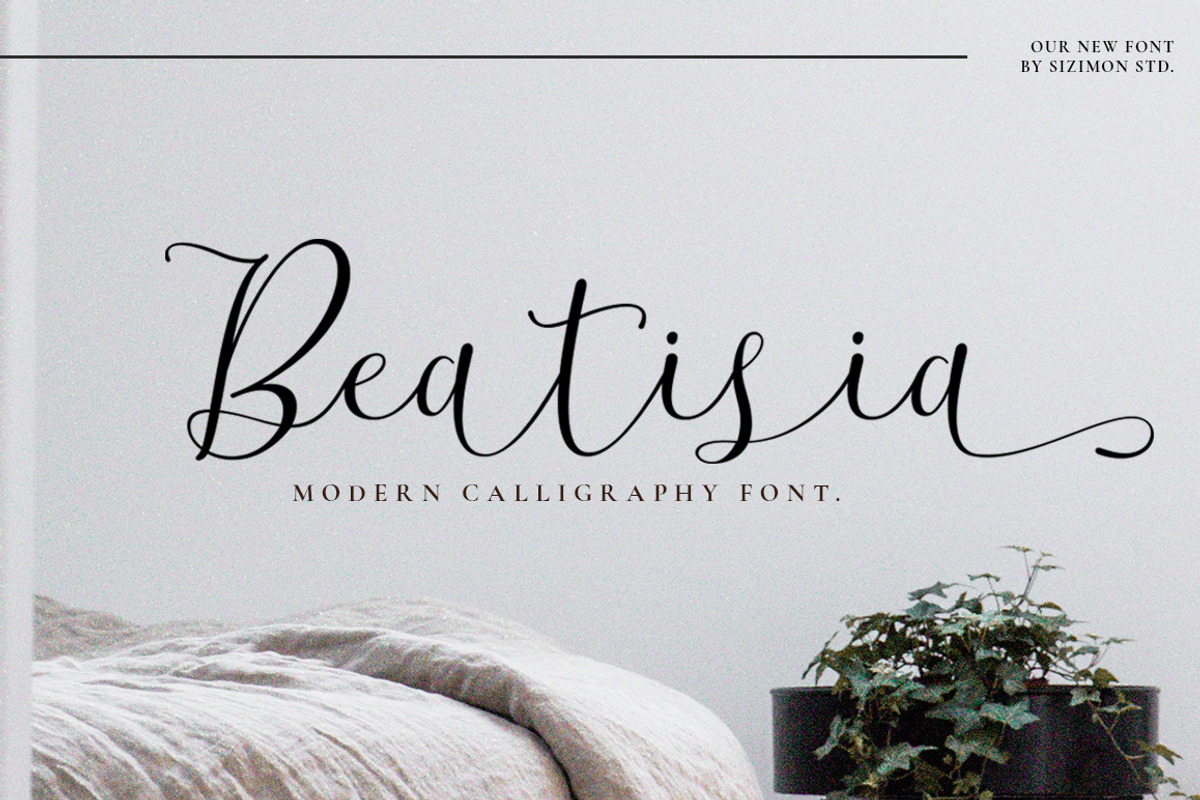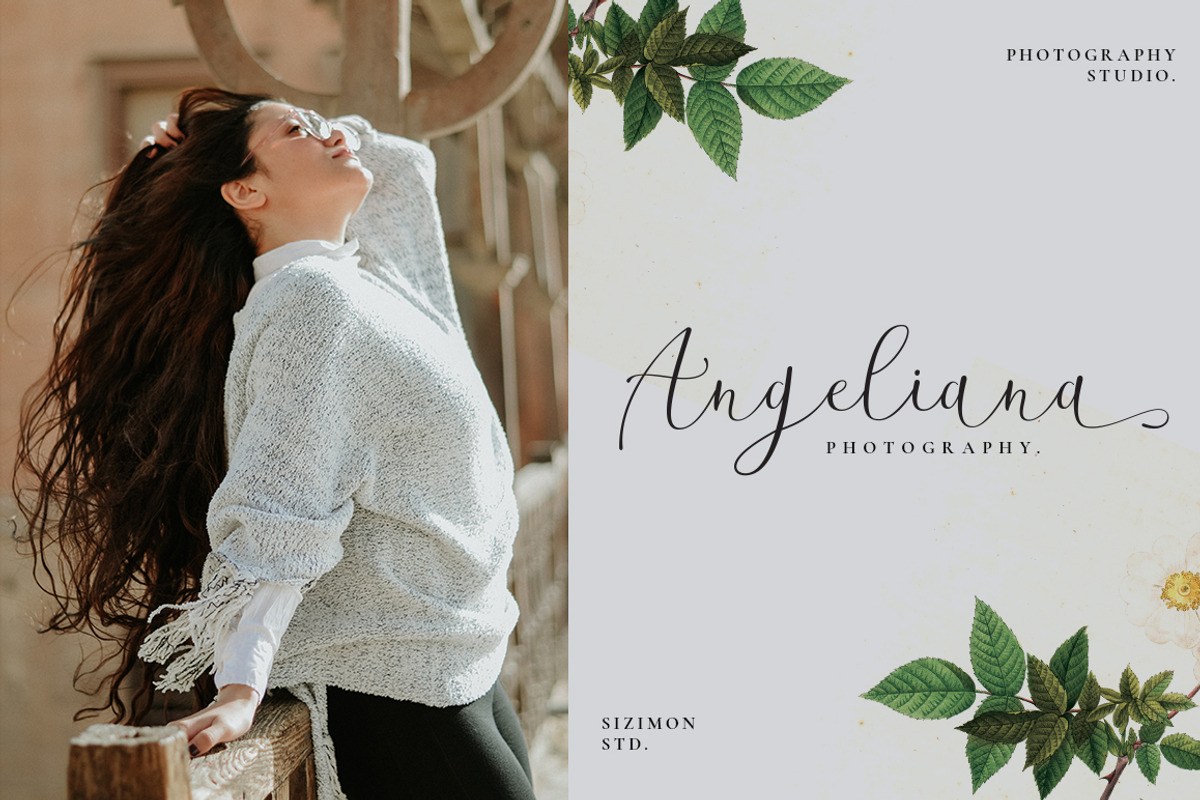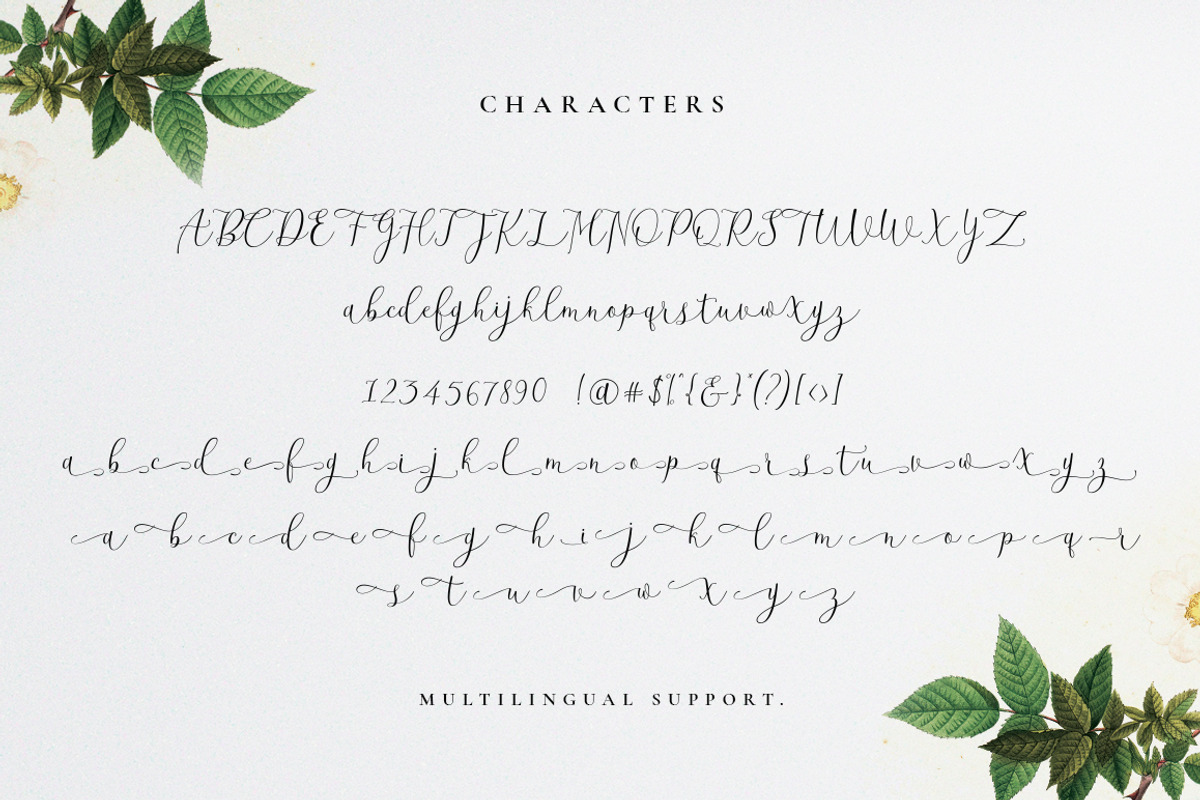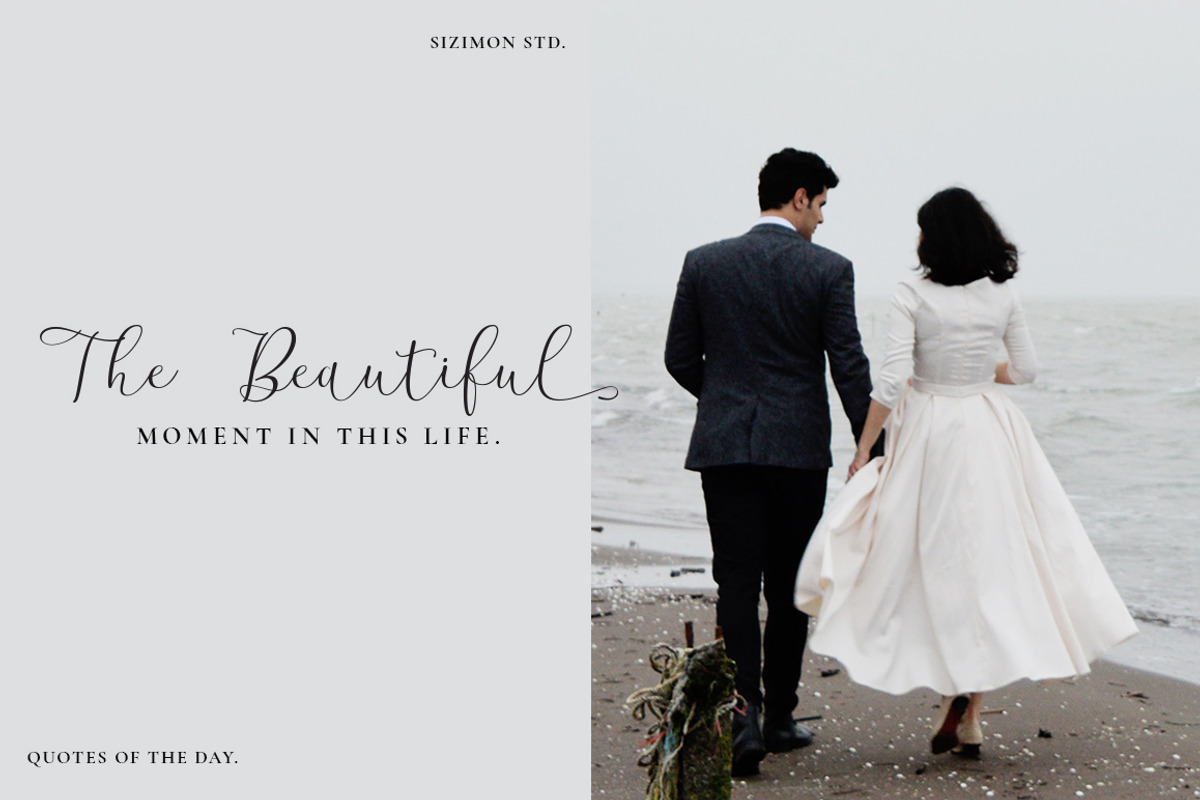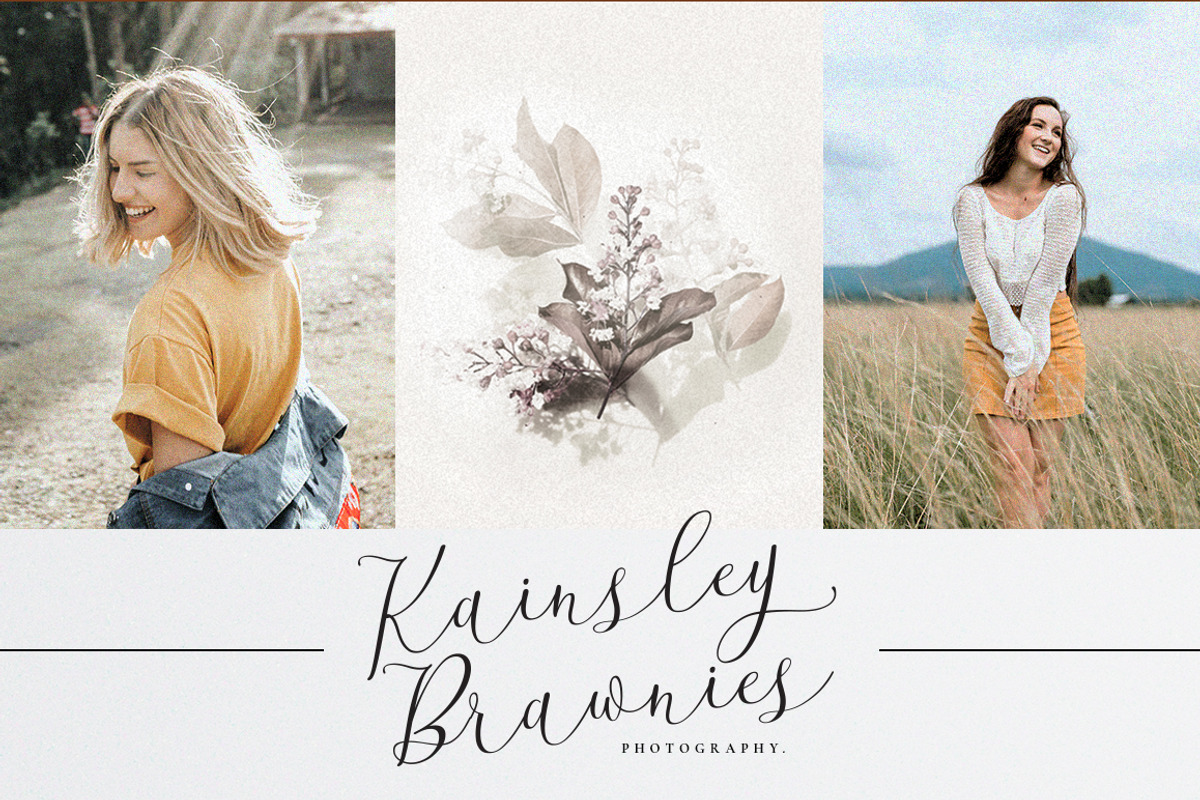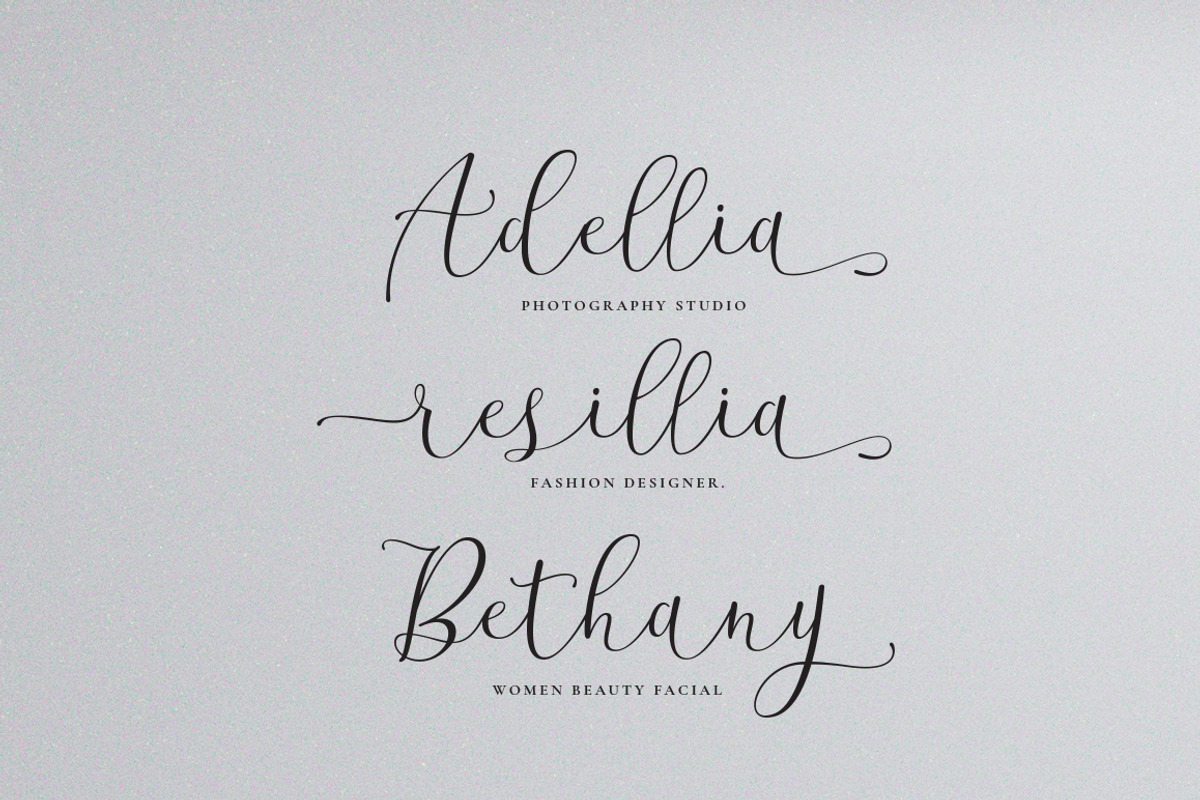
Beatisia Script
Introducing our new product Beatisia Script. It is elegant, feminine, fashionable and friendly. Trendy and feminine style. Our font will be advocates for purposes such as wedding invitations, thank you cards, quotes, greeting cards, logos, business cards, party, graduation, birthday, gathering, etc.
- Uppercase,lowercase,numeral,punctuation & Symbol